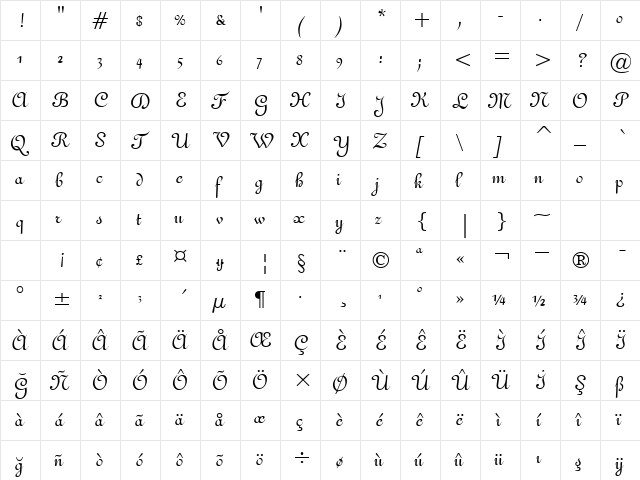
Gando A
Design Context for Gando Typeface
Gando is a composed and adaptable typeface that performs quietly and consistently across a wide range of design contexts.